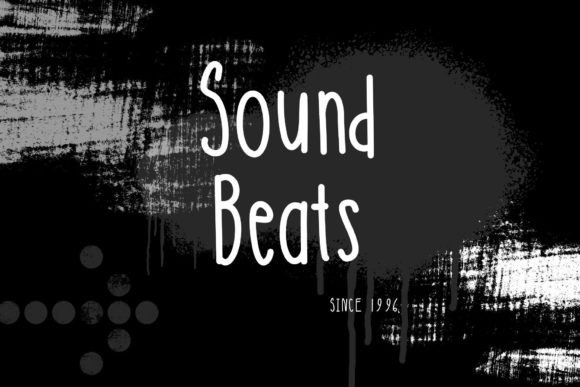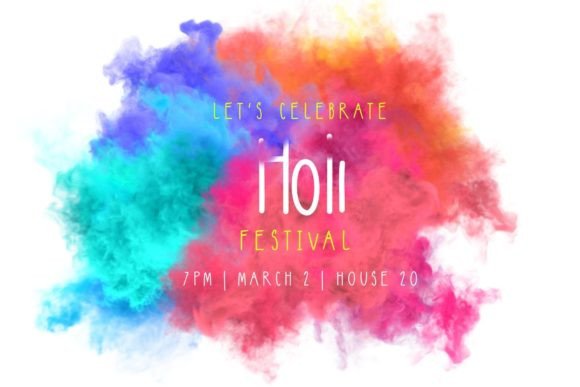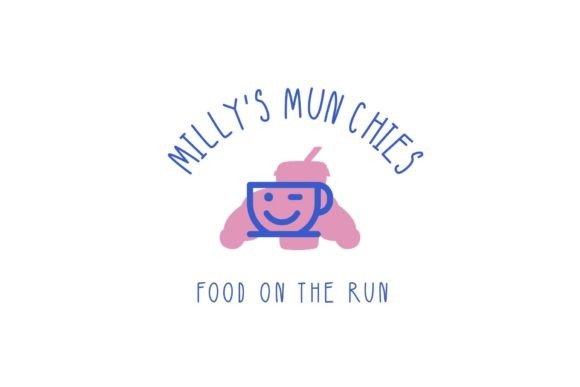
About Skylar Font
Skylar is not just a font; it’s a whimsical and enchanting typeface designed to bring a touch of magic to your creative projects. Whether you’re crafting with Cricut, working on logos, branding, or creating a variety of designs, Skylar is your go-to font for adding a playful and unique flair. Let’s explore the characteristics that make Skylar the perfect choice for a wide range of creative endeavors.
First and foremost, Skylar’s whimsical nature sets it apart. The font’s design exudes a sense of light-heartedness and charm, making it ideal for projects that require a touch of playfulness. This whimsical quality ensures that Skylar adds a delightful and enchanting vibe to your designs.
Skylar’s handwritten style adds a personal and authentic touch to your creations. The fluidity of the strokes gives the font a natural and organic feel, creating a connection with your audience. This makes Skylar versatile, suitable for a variety of applications ranging from wedding invitations to social media graphics.
The font’s versatility extends to its compatibility with different projects. Whether you’re designing decor items, pantry labels, business cards, or planner prints, Skylar seamlessly integrates into various contexts. Its adaptability makes it a valuable asset for any creative project you can imagine.
Skylar is a font that captures attention. Its unique and whimsical design ensures that your designs stand out from the crowd. Whether used in logos, branding, or posters, Skylar brings a distinctive charm that draws the eye and leaves a lasting impression.
Cricut enthusiasts will find Skylar to be the perfect companion for their crafting projects. The font’s whimsical and playful elements add an extra layer of creativity to your Cricut designs, making them visually appealing and engaging.
In conclusion, Skylar is more than just a font; it’s a creative tool that infuses whimsy and charm into your projects. Whether you’re working on Cricut crafts, logos, branding, or various designs, Skylar ensures that your creations capture the imagination and attention of your audience. Add Skylar to your creative toolkit and watch as it transforms your projects into enchanting works of art.